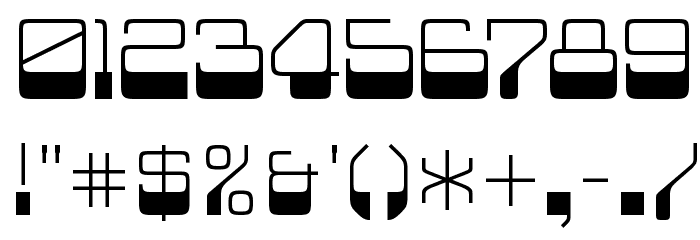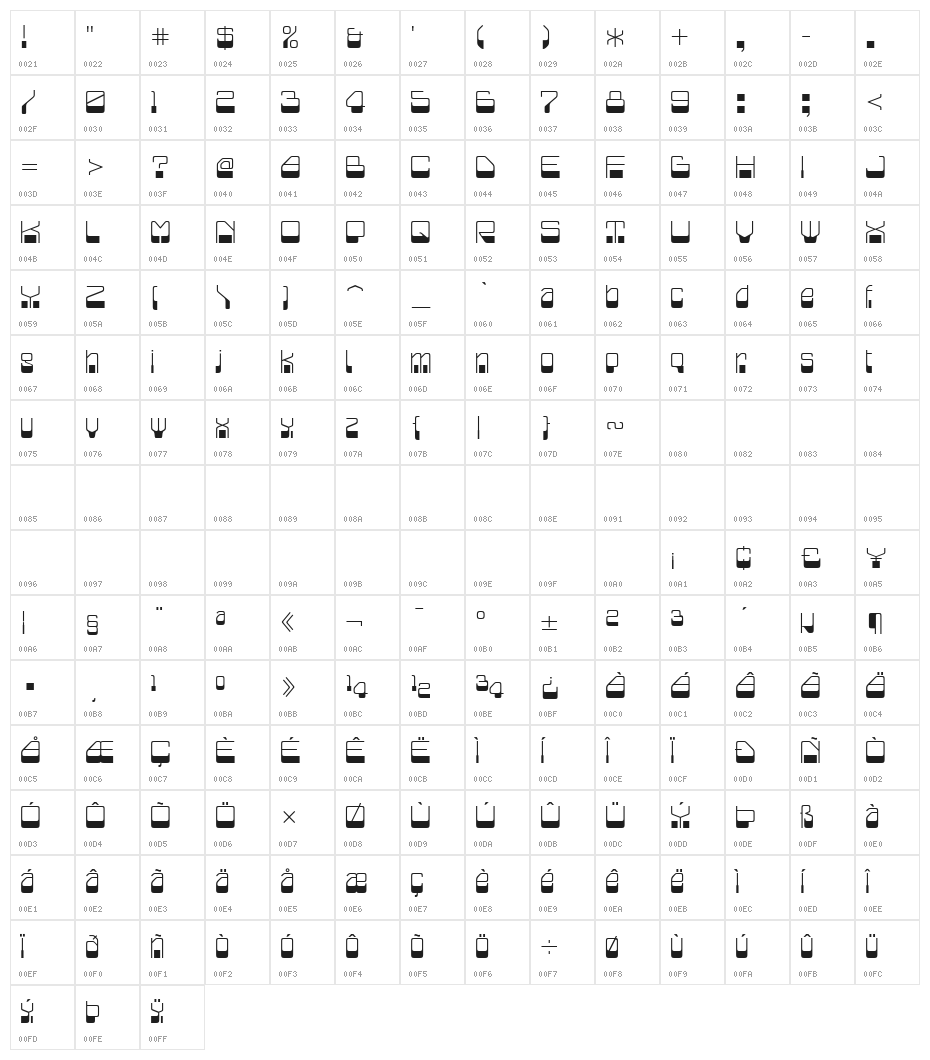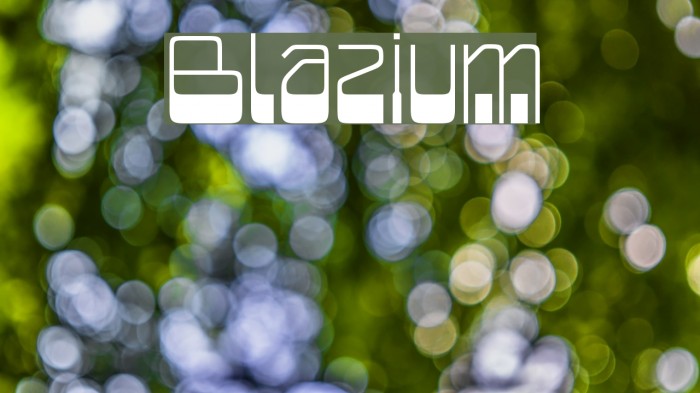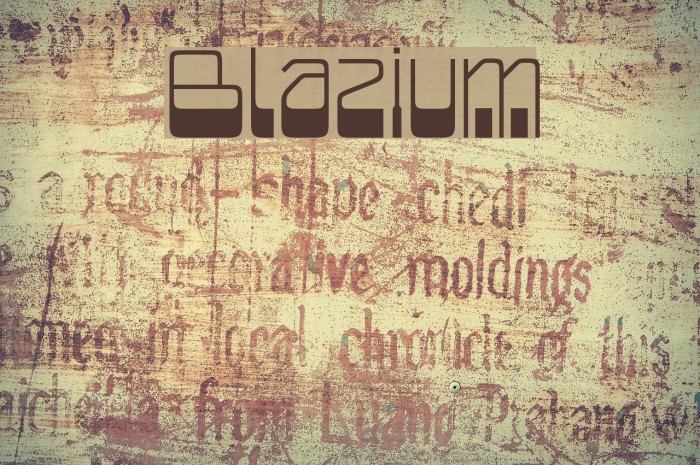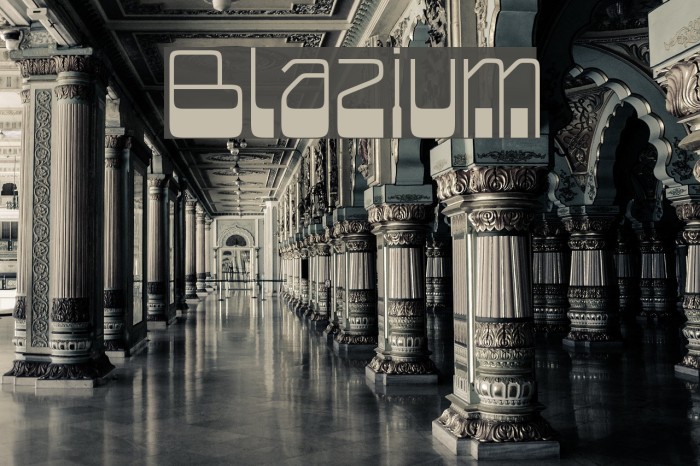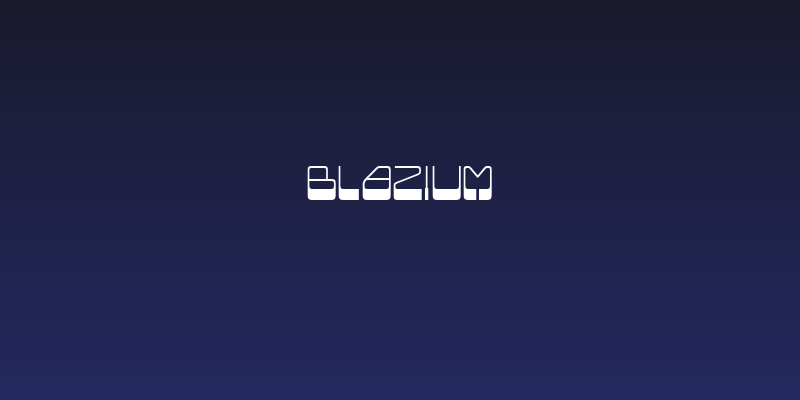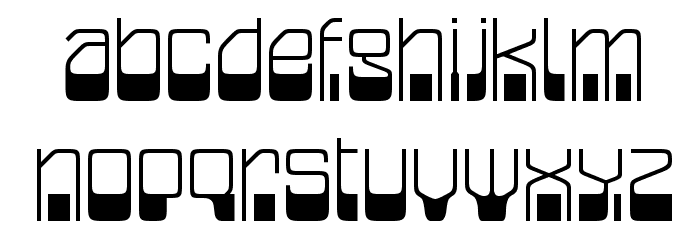
Blazium Font
Blazium Description
This font features a futuristic and geometric design with a bold, block-like appearance. The characters are constructed with a combination of thick and thin strokes, creating a high contrast that emphasizes their unique shapes. The uppercase letters are particularly striking, with a squared-off style that gives them a modern, tech-inspired look. The lowercase letters maintain the same geometric theme, offering a cohesive appearance across the typeface. Numbers and special characters are designed to match the overall aesthetic, making this font suitable for a variety of creative applications.
| Proposed Projects | Ideal for technology branding, sci-fi posters, video game titles, and modern advertising. |